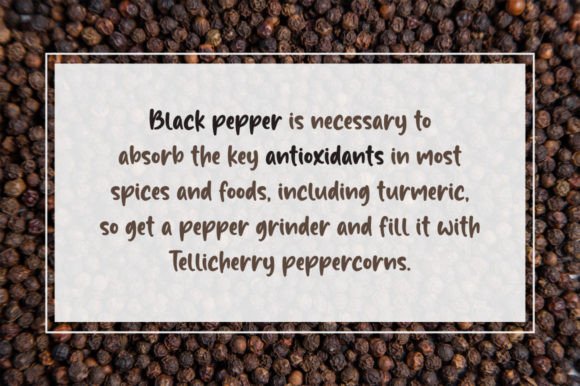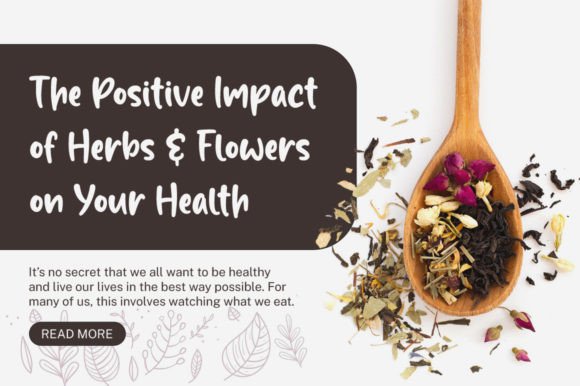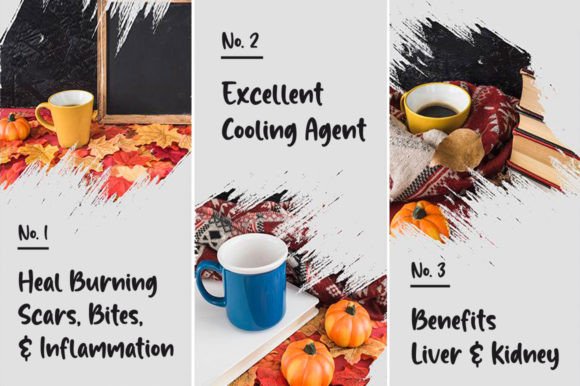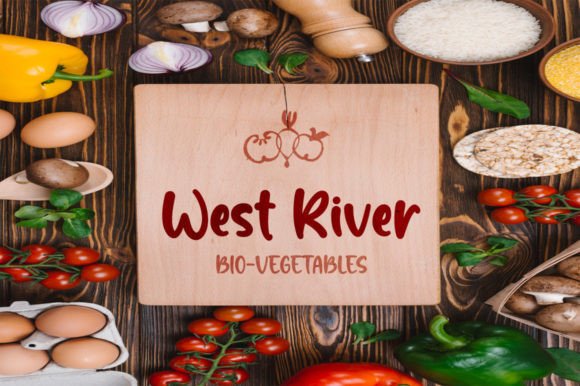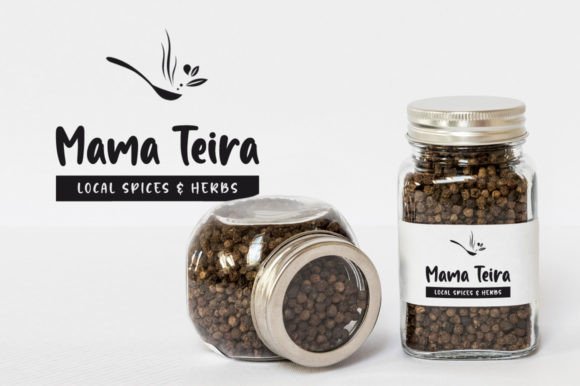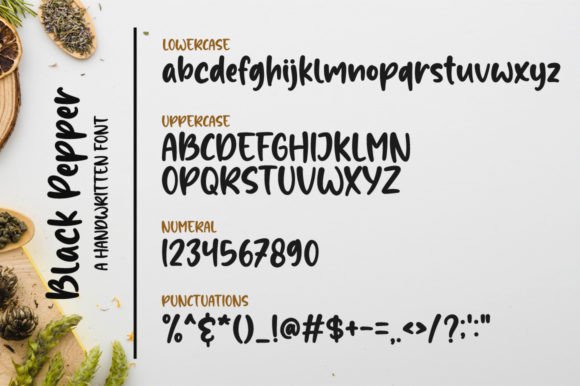
Introducing Black Pepper Font: The Perfect Handwritten Font for Chalkboard Quotes and Teaching Materials
Are you a designer, teacher, or crafter looking for a font that can add a personal touch to your designs? Look no further than Black Pepper Font! This delicate and simple-lettered handwritten font is perfect for creating chalkboard quotes, teaching materials, and other designs that require a realistic and authentic look.
What Makes Black Pepper Font So Special?
Black Pepper Font is a unique and elegant font that is designed to mimic the look of handwriting on a chalkboard. Its authentic look and feel make it perfect for creating designs that require a personal and realistic touch. The font is simple, yet elegant, making it suitable for a wide range of design projects, from chalkboard quotes to teaching materials, and even craft projects.
Key Features of Black Pepper Font
- Delicate and Simple-Lettered: Black Pepper Font features delicate and simple lettering that is easy to read and looks great on any design project.
- Handwritten Style: The font has a handwritten style that gives it a personal and realistic feel, making it perfect for creating designs that require a human touch.
- Chalkboard-Inspired: The font is inspired by traditional chalkboard writing, making it perfect for creating chalkboard quotes, posters, and other designs.
- Easy to Read: Despite its delicate nature, Black Pepper Font is easy to read, making it suitable for use in teaching materials, posters, and other designs where readability is important.
Uses for Black Pepper Font
Black Pepper Font is a versatile font that can be used for a wide range of design projects, including:
- Chalkboard Quotes: Create beautiful and inspiring chalkboard quotes using Black Pepper Font.
- Teaching Materials: Use Black Pepper Font to create teaching materials, such as worksheets, posters, and presentations, that require a personal touch.
- Craft Projects: Add a personal touch to your craft projects, such as scrapbooking, card making, and journaling, with Black Pepper Font.
- Signage: Use Black Pepper Font to create eye-catching signage for events, businesses, and organizations.
Tips for Using Black Pepper Font
Here are some tips for using Black Pepper Font in your design projects:
- Pair with Other Fonts: Pair Black Pepper Font with other fonts to create a unique and interesting design.
- Use in Combination with Images: Use Black Pepper Font in combination with images to create a visually appealing design.
- Experiment with Colors: Experiment with different colors to find the perfect combination that works with Black Pepper Font.
Black Pepper Font is a beautiful and versatile font that is perfect for designers, teachers, and crafters looking to add a personal touch to their designs. Its delicate and simple-lettered handwritten style makes it suitable for a wide range of design projects, from chalkboard quotes to teaching materials and craft projects. With its authentic look and feel, Black Pepper Font is sure to become a favorite font in your design arsenal.